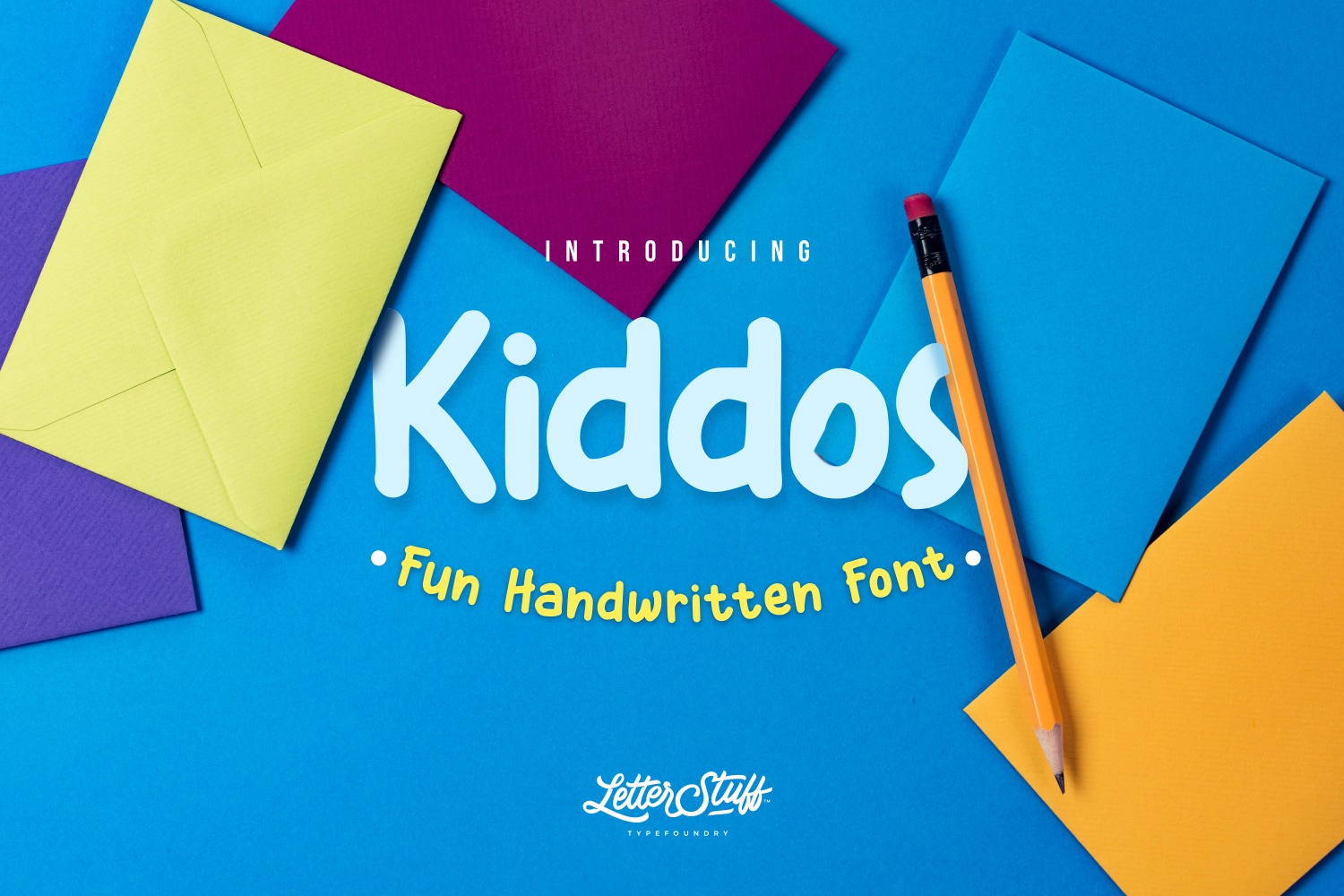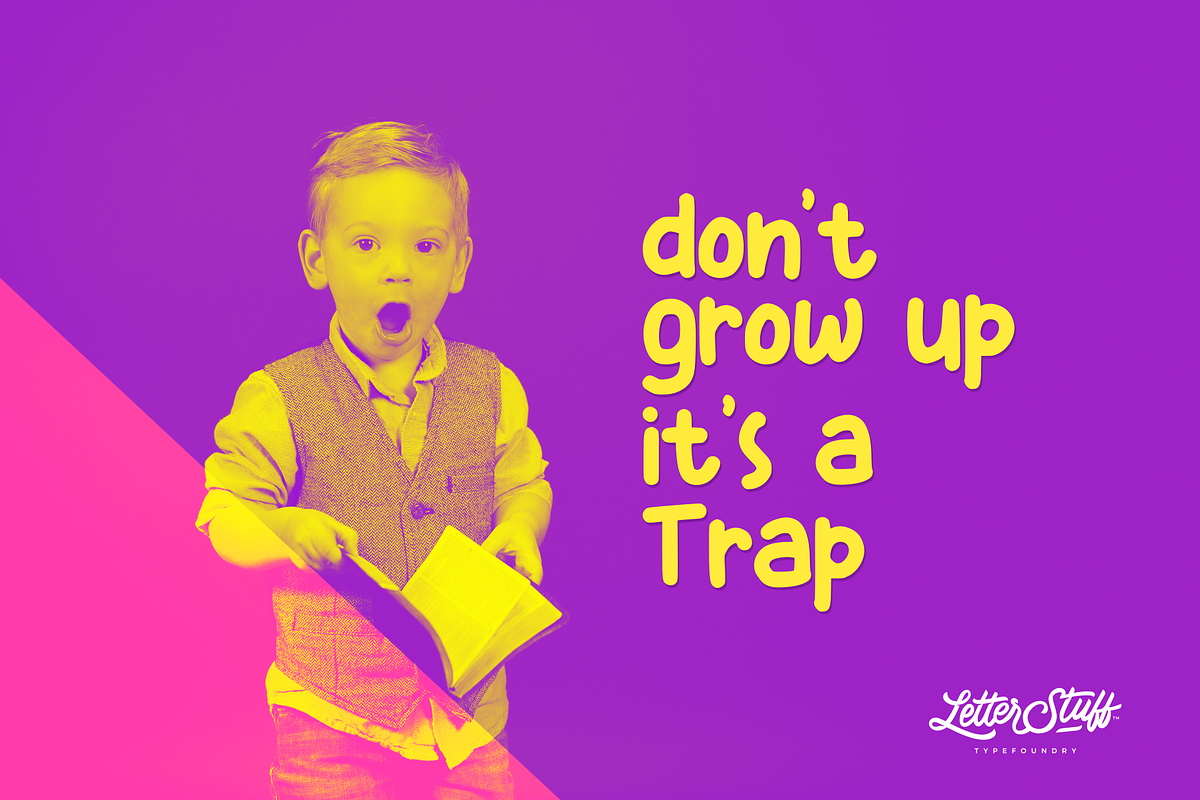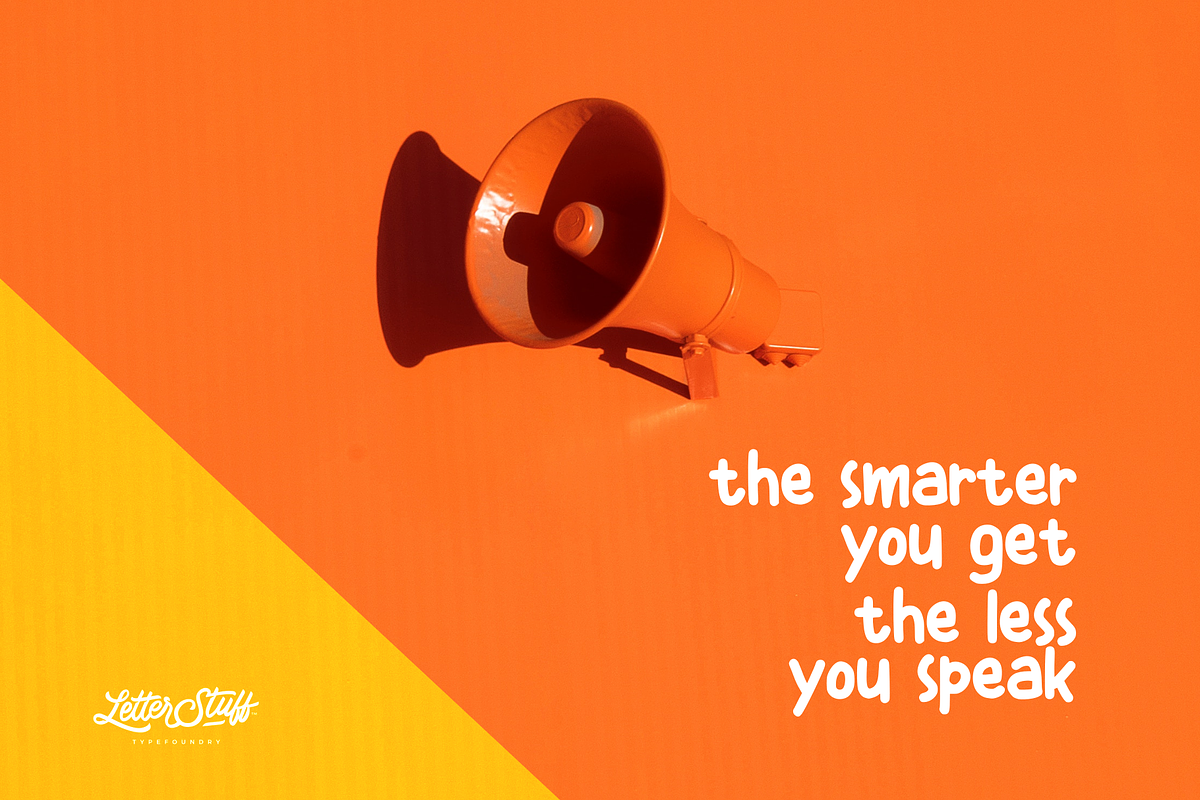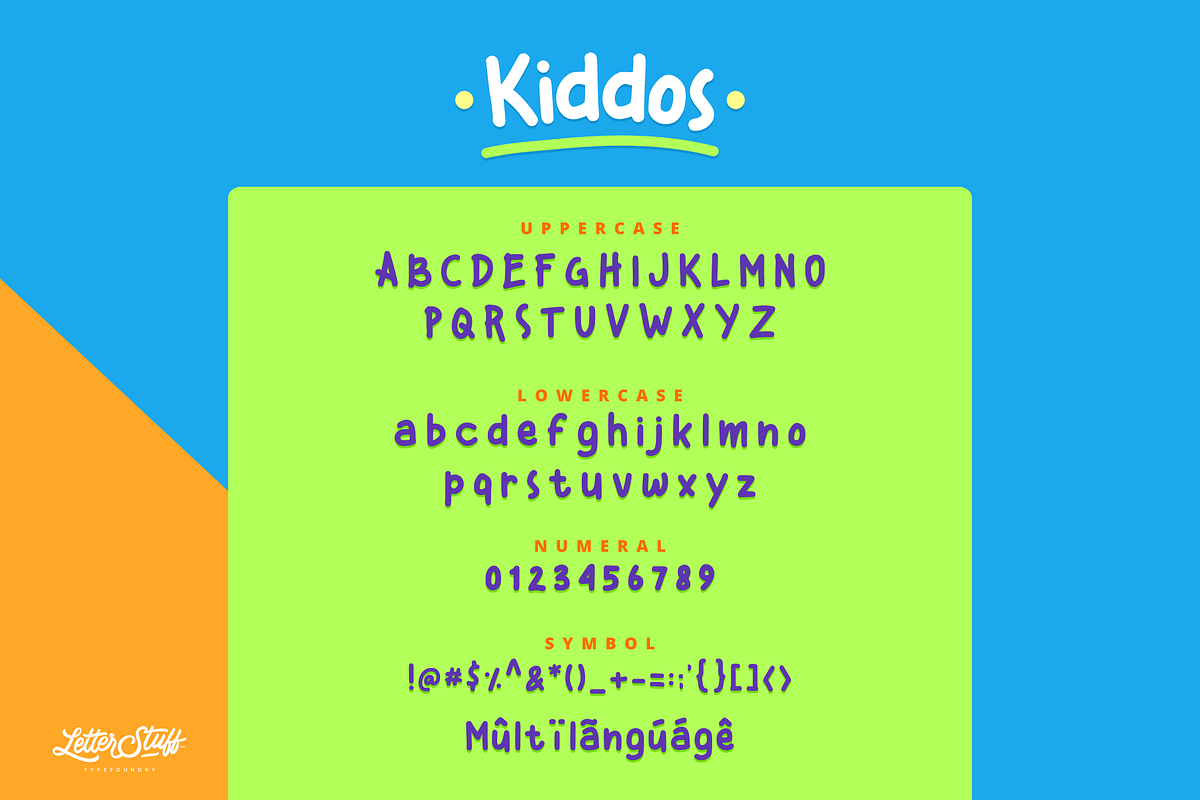
Kiddos Font | Handwritten Font
Kiddos was created with handwriting style using a marker. The font appear fun and clean hence it is perfect for your poster, comics, or quotes design as well.
- Available style : Regular and Oblique
- Uppercase , lowercase, punctuation, numbers